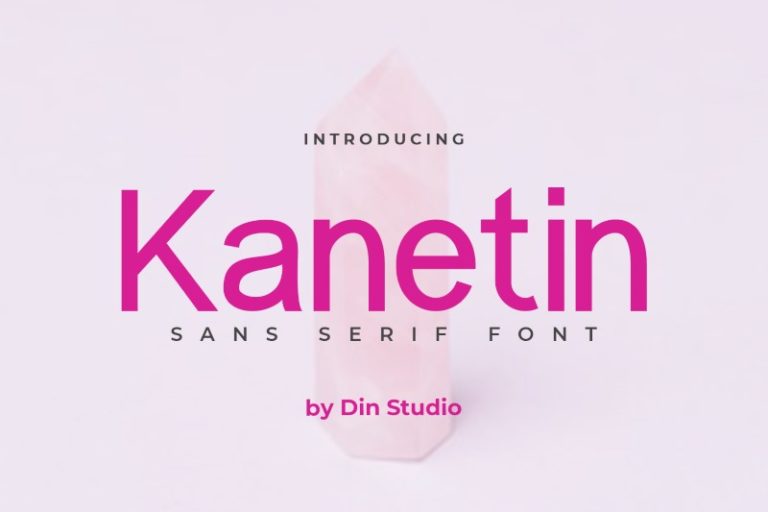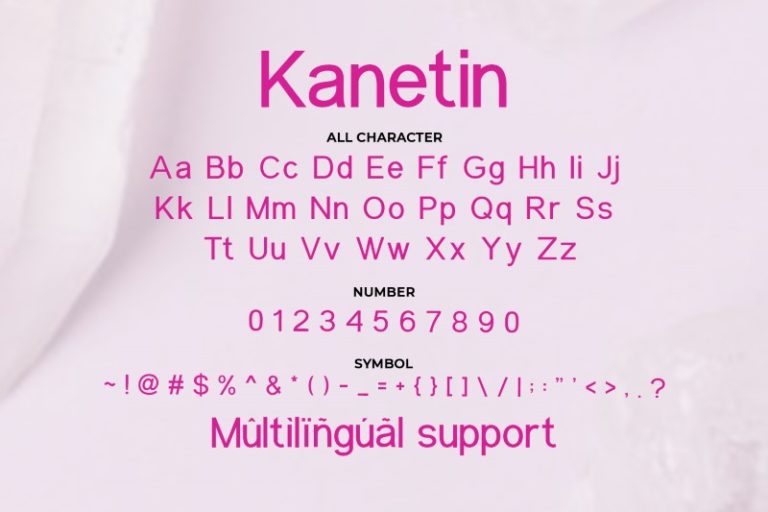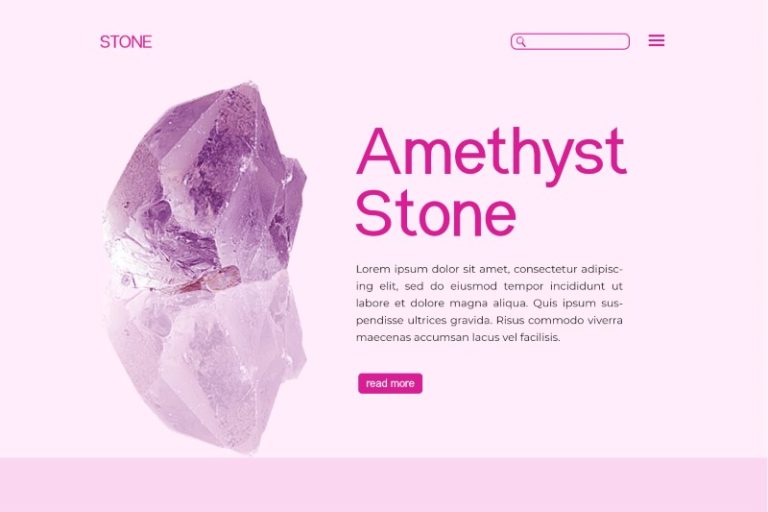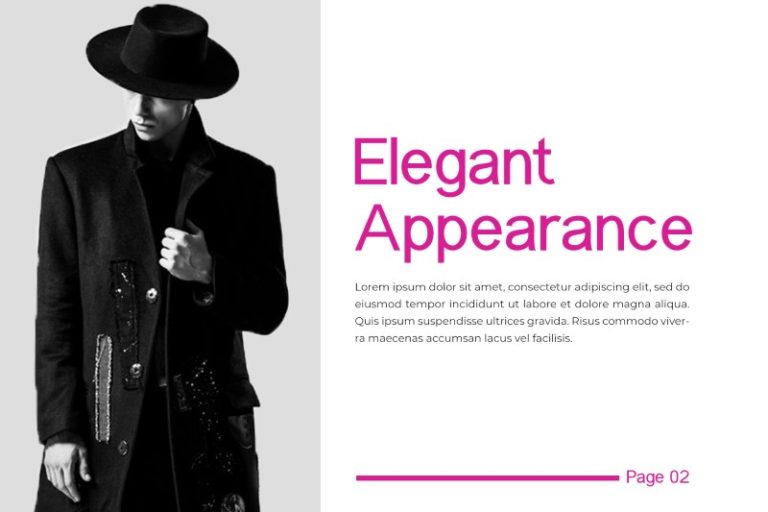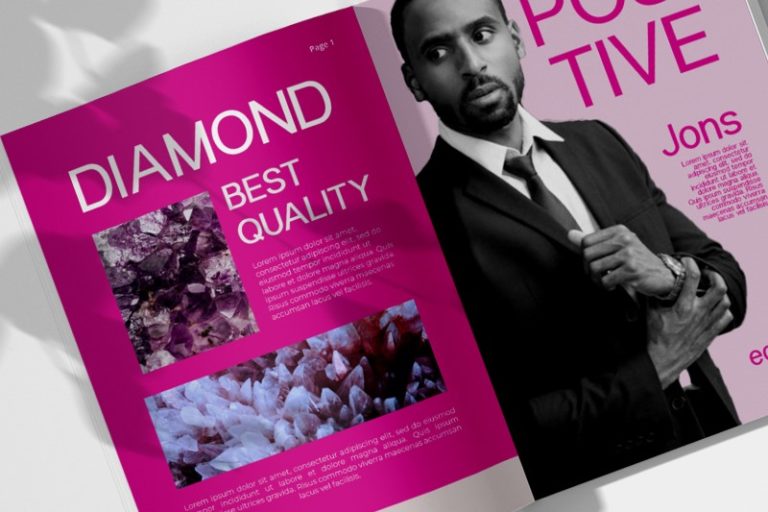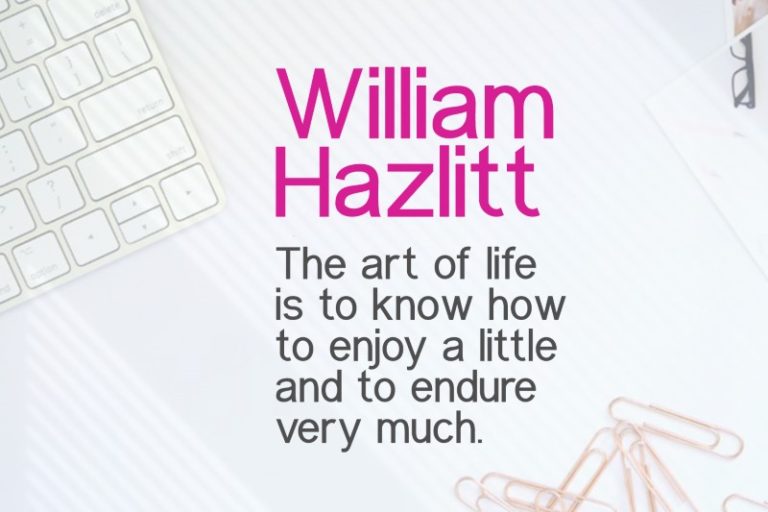
Kanetin – Beautiful Sans Serif Font
Kanetin
Kanetin is a beautiful sans serif font made for any professional project brandings which is perfect for printings, brandings, and quotes. Every letter has a unique and beautiful touch. See the previews above to get some inspiration on how you can use them. Happy Designing!